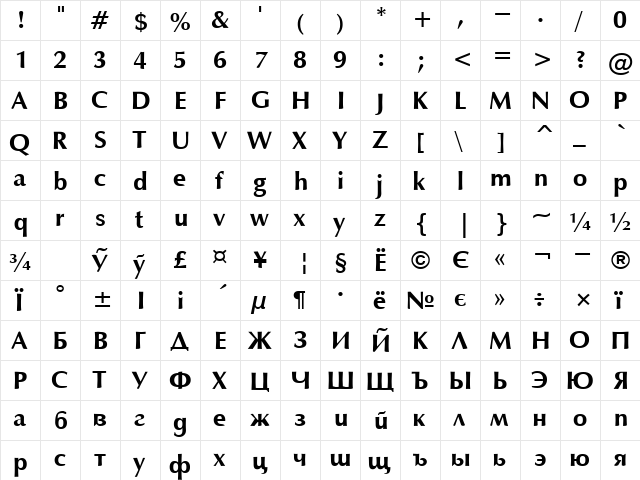
Opium Bold
Design Context for Opium Typeface
Opium is a composed and adaptable typeface that performs quietly and consistently across a wide range of design contexts. Its bold stroke weight gives it real presence on the page.